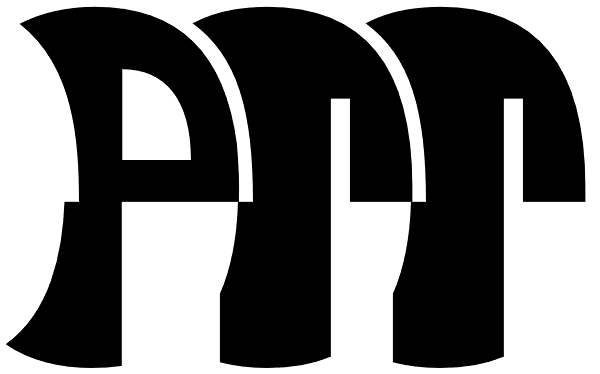
PTT
PTT typeface has very rounded outlines. They are extremely overlapping each other like packed potatoes. The face will be very strong and give your design extraordinary spice! Basically, main characters are consist of two different shapes, one is...